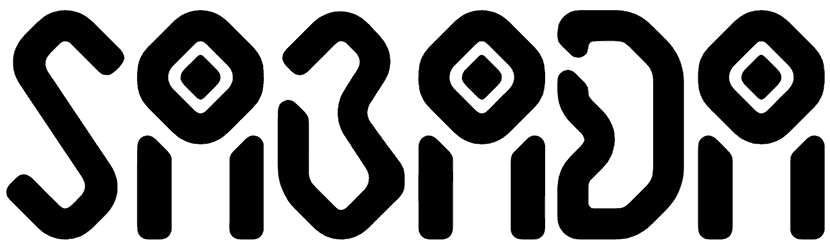
Sabada Font
Designed byBvst Creative
If you want to display a design that looks like it came from another world, definitely consider this particular foreign font. Sabada has an ultramodern outward appearance and reflects an eye-catching mood. You can count on this tribal font for various projects such as movie posters, magazines, illustrations, logos, graphics, and the like.